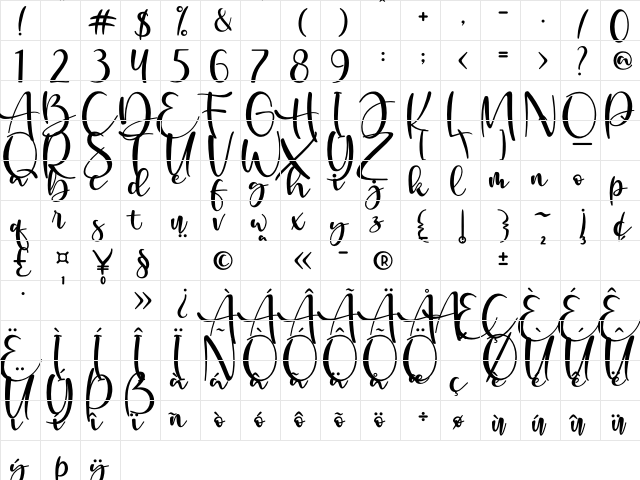
Marbellos Regular
| Designer | Yuliatno |
Design Context for Marbellos Typeface
Marbellos is a composed and adaptable typeface that performs quietly and consistently across a wide range of design contexts.